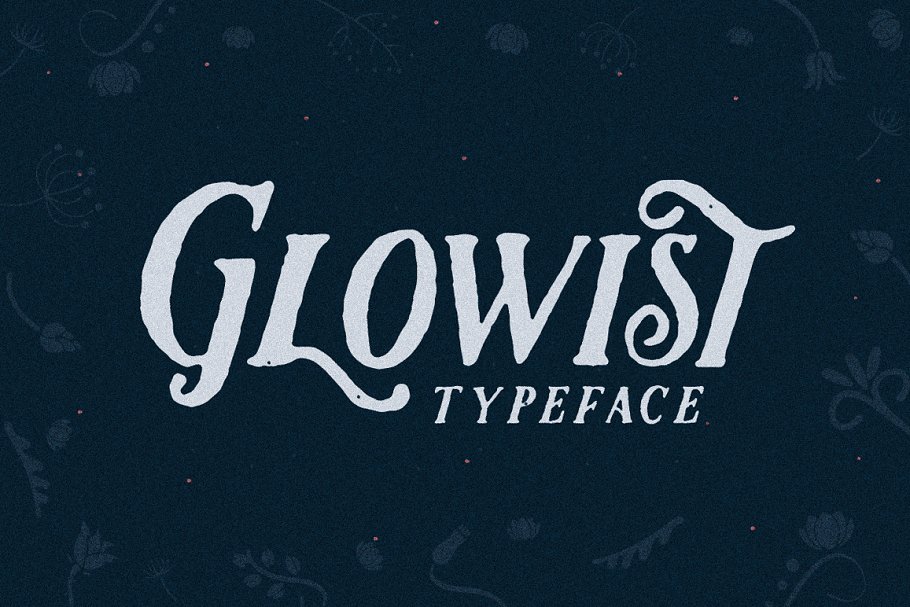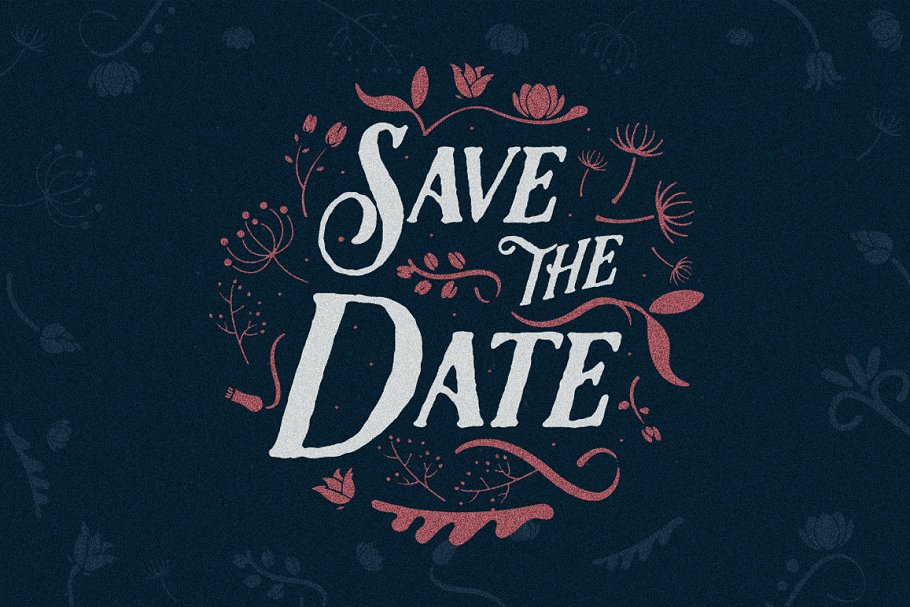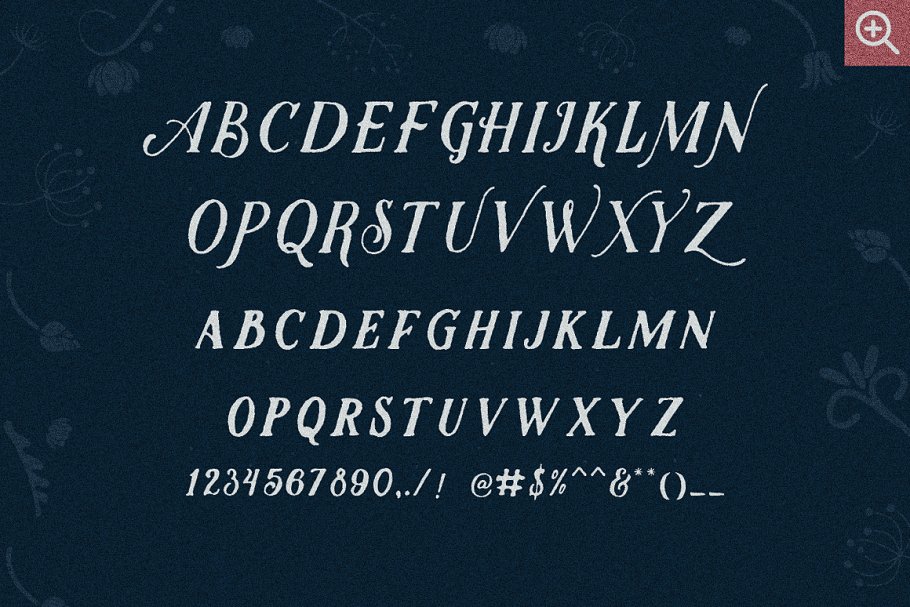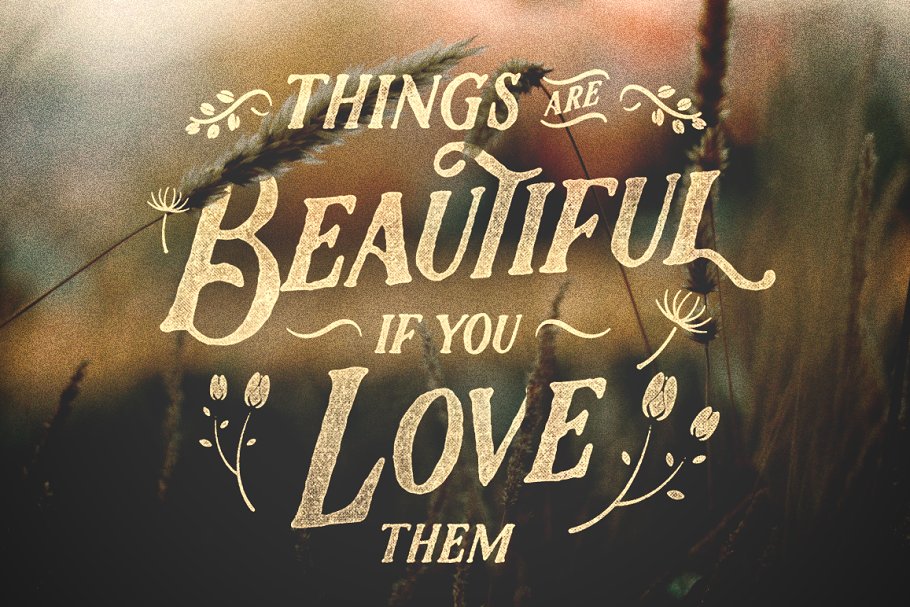
About the Glowist
introducing our first font!!This is Glowist typeface is serif font made by hand, with alternate characters and ornaments that will provoke your creativity and make it easier to make the awesome work, This font is suitable for greeting cards, posters, labels, t-shirt design, etc, you will get Glowist otf and ornament pack, Please Visit our website : https://flavortype